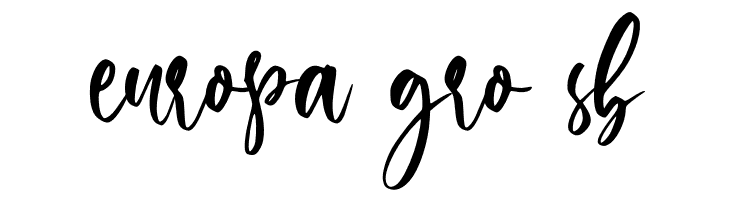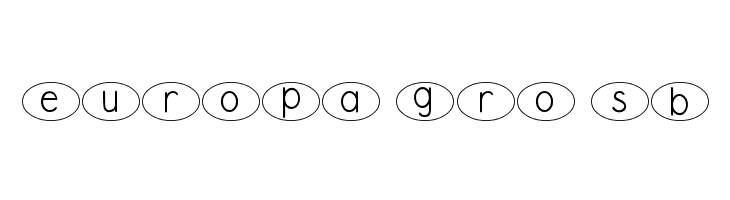
A rugged, textured font with a hand-crafted, vintage appearance.
A bold, vintage font with intricate, decorative flourishes.
A whimsical font with curly, decorative elements, perfect for magical or fantasy themes.
A bold, textured font with a rustic, hand-drawn appearance.
A bold, distressed font with a vintage, textured appearance.
A bold, expressive handwritten font with dynamic strokes and a textured appearance.
A bold, sketch-like font with a hand-drawn, textured appearance.
A tall, narrow font with a modern and artistic style.
An elegant, flowing script font with intricate, sweeping strokes and a classic calligraphic style.
A bold, playful handwritten font with rounded, slanted characters.
A bold, angular font with a gothic influence and leftward slant.
A bold, geometric font with a modern and striking appearance.
A rugged, distressed font with a bold, graffiti-like style.
A dynamic, cursive script font with fluid, expressive strokes.
A bold, distressed font with a grunge, industrial style.
A futuristic, striped font with a geometric and digital aesthetic.
Western-themed decorative icon set with bold, detailed silhouettes.
A bold, Western-style font with framed uppercase letters.
A decorative font with cartoon-style wild west characters.
A bold, modern font with a double-line style and geometric structure.
A bold, geometric font with a modern double-line design.
A bold, italicized font with a modern, geometric style.
An ornate, medieval-style decorative font with intricate flourishes.
A playful sans-serif font with characters enclosed in circles, ideal for creative projects.
A playful font with bold, rounded characters enclosed in circles, perfect for creative projects.
A modern, geometric outline font with an italic slant and angular design.
A futuristic, italicized font with a gradient stripe effect, perfect for dynamic and modern designs.
A futuristic and geometric font with bold, angular letterforms and expanded width.
A bold, futuristic font with a 3D outline effect and geometric design.
A dynamic and flowing script font with elegant, sweeping strokes.
A bold, dynamic script font with a handwritten, fluid style.
A bold, dynamic script font with a sense of motion and elegance.
A bold, italicized font with a modern and dynamic style.
A modern, italic font with sharp angles and a dynamic, fluid style.